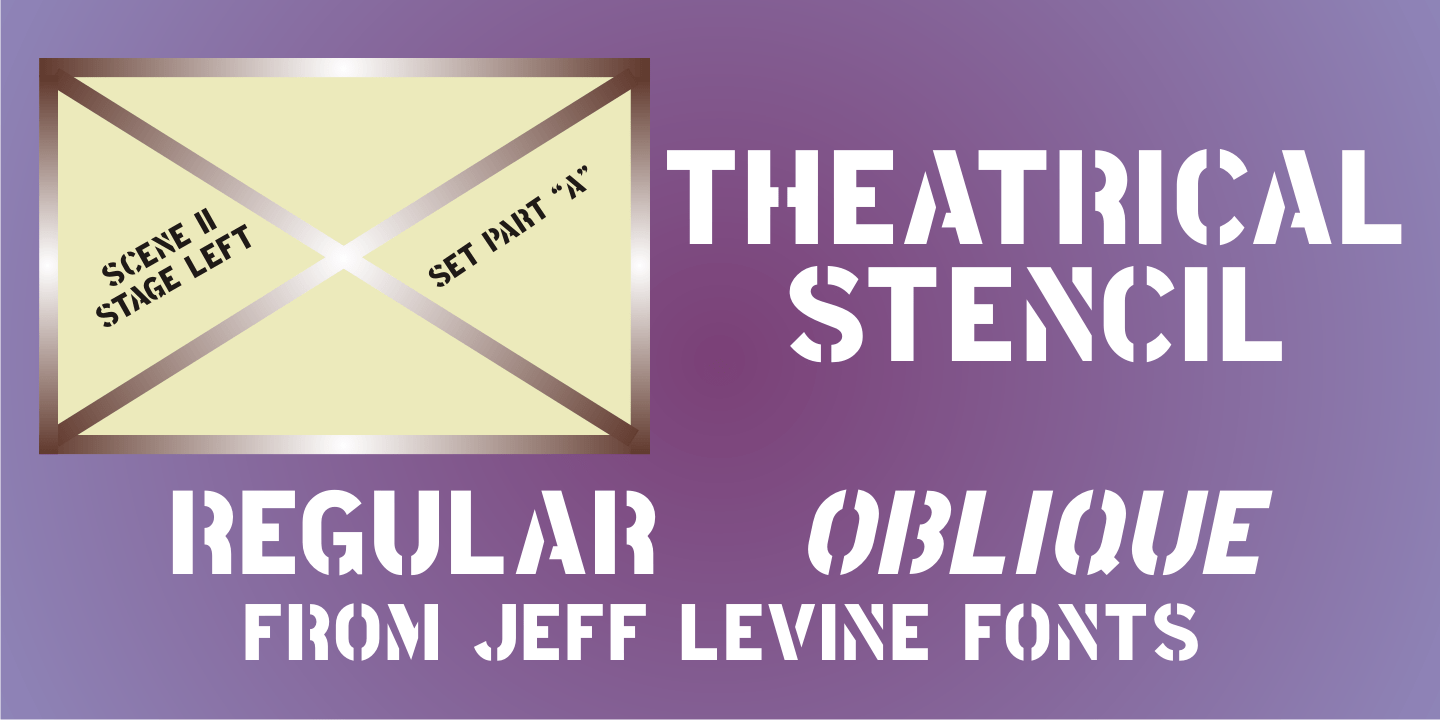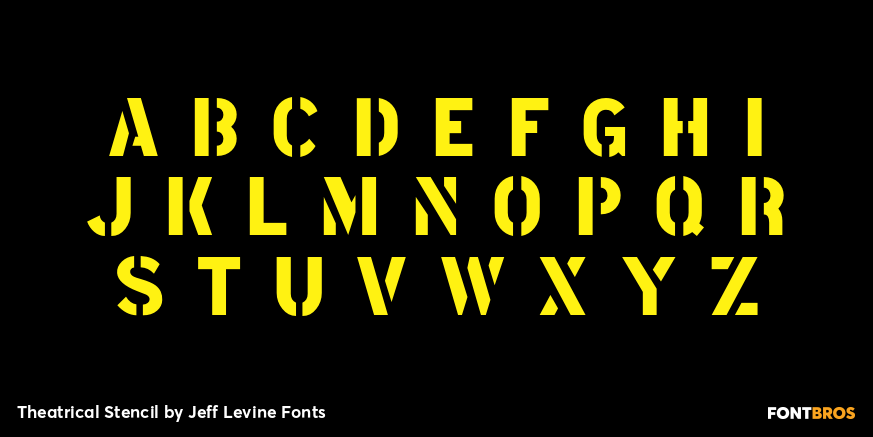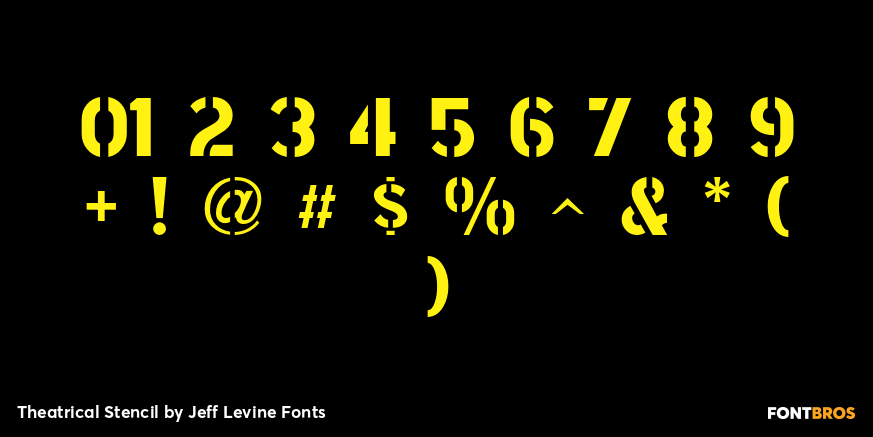
Theatrical Stencil
A vintage hand-punched brass stencil for the Pasadena Playhouse spotted online was the basis for Theatrical Stencil JNL.
Slight variations in the letter forms from other similar designs might not quickly be noticed, but there is always a charm in the hand-made look of any stenciled lettering.